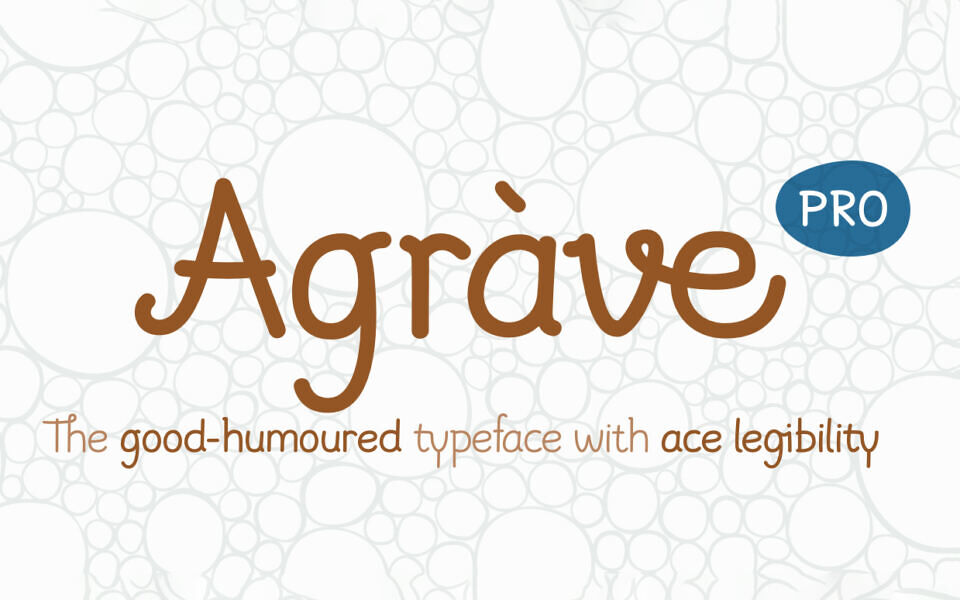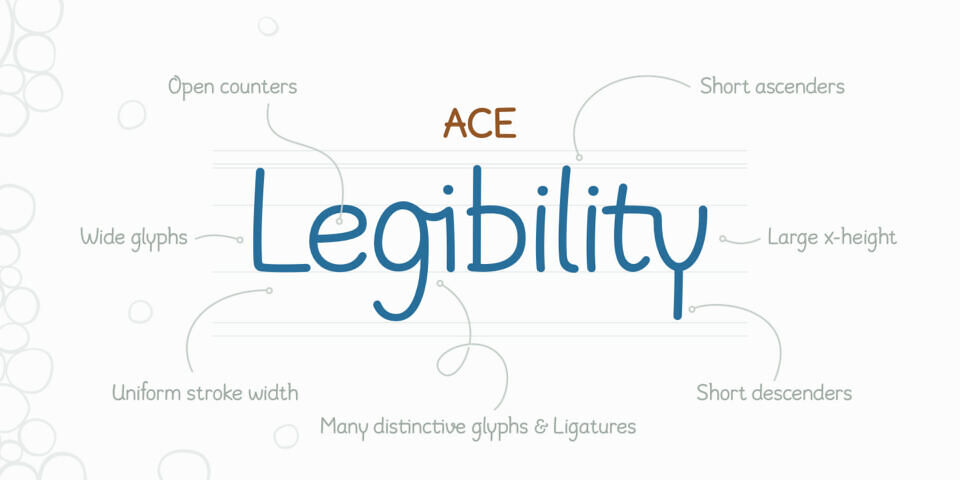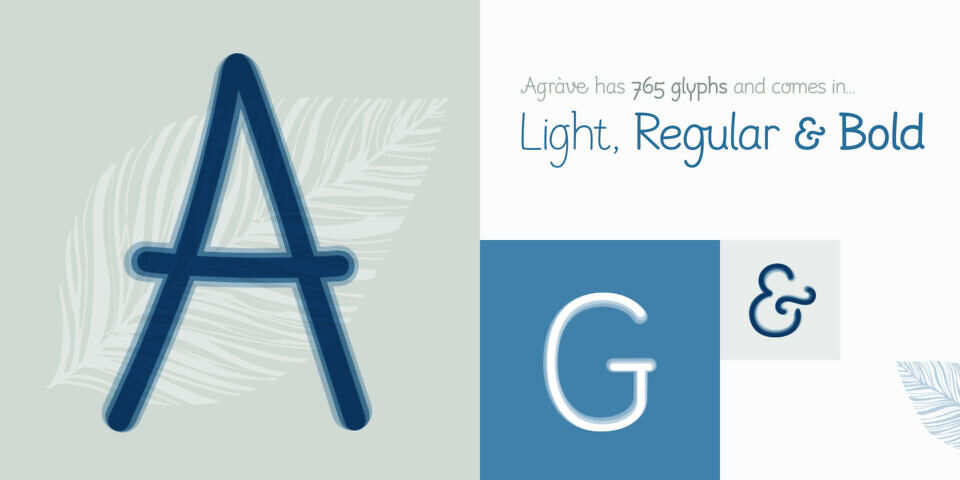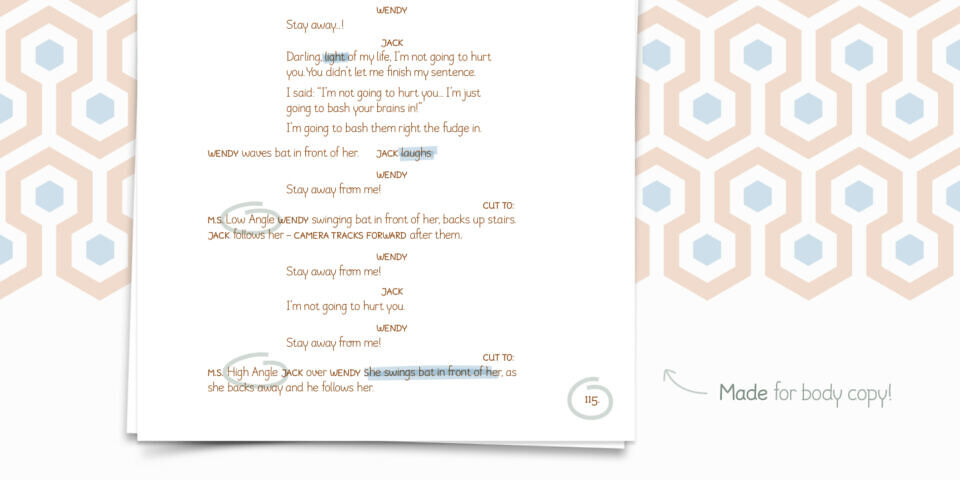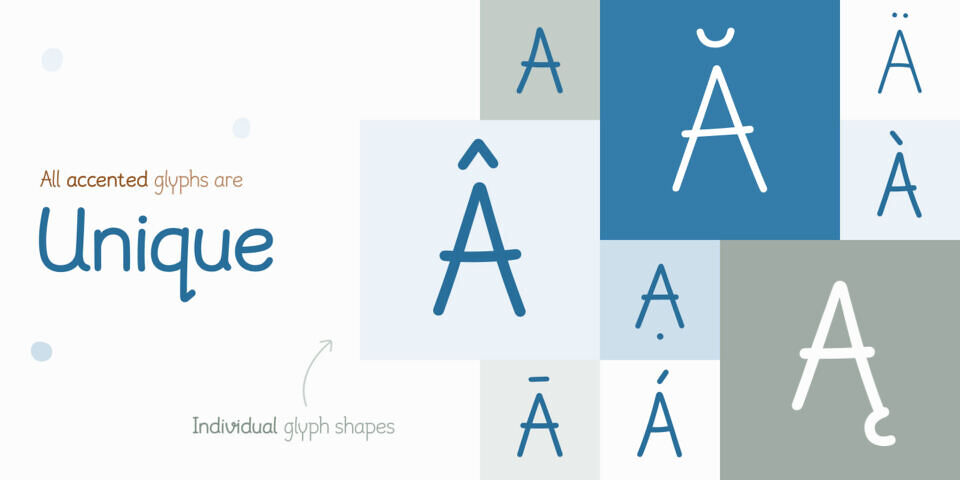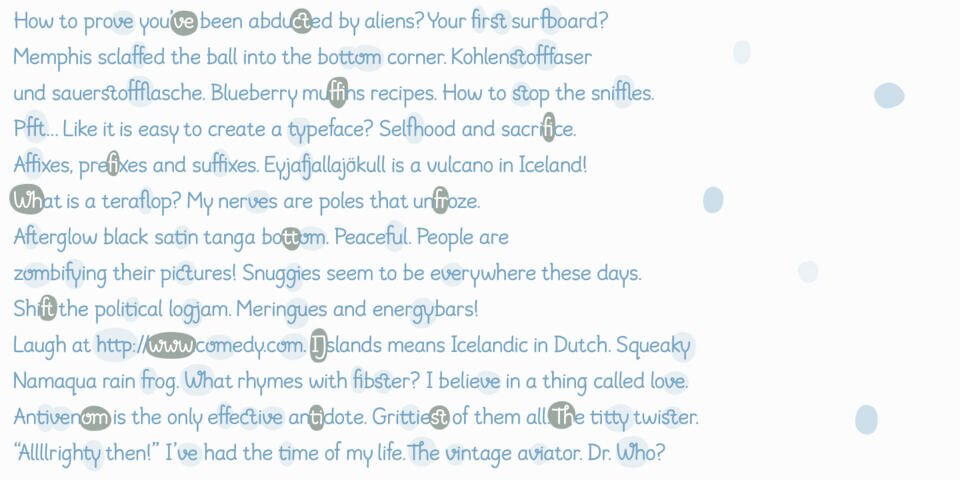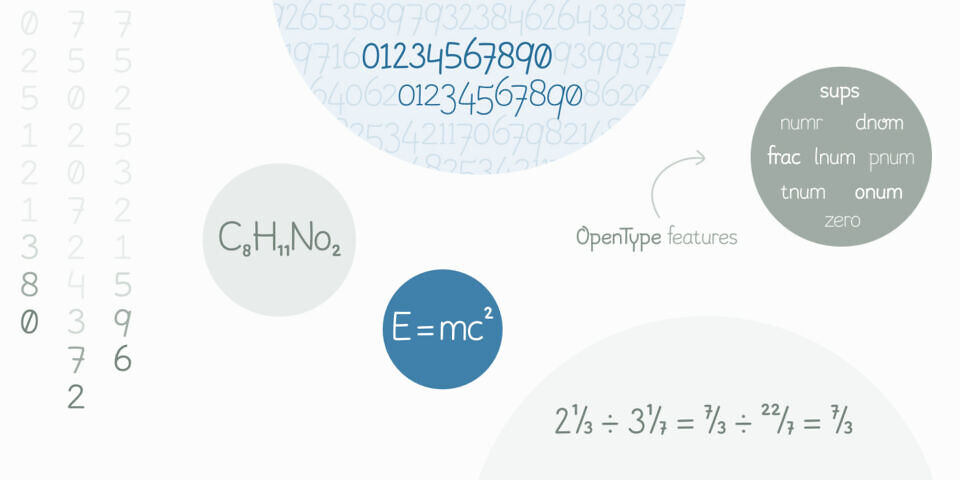
Agràve Pro is a handwritten typeface for longer texts, with open counters, short ascenders and descenders, uniform strokes, and solid legibility. The family offers three weights and supports multiple languages, with ligatures, unique accented glyphs, small caps, and a full range of figure styles.